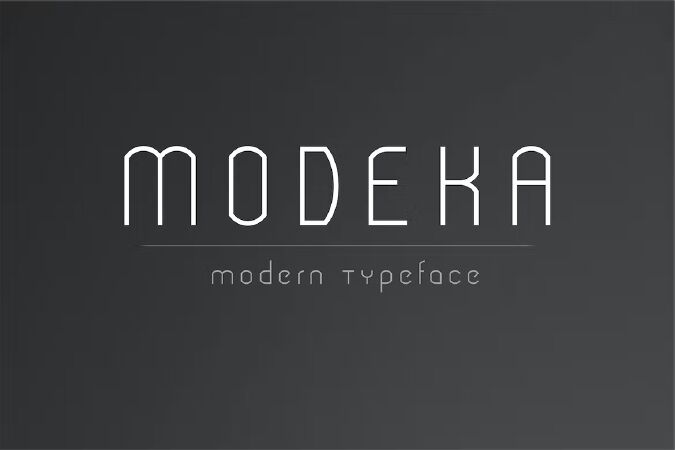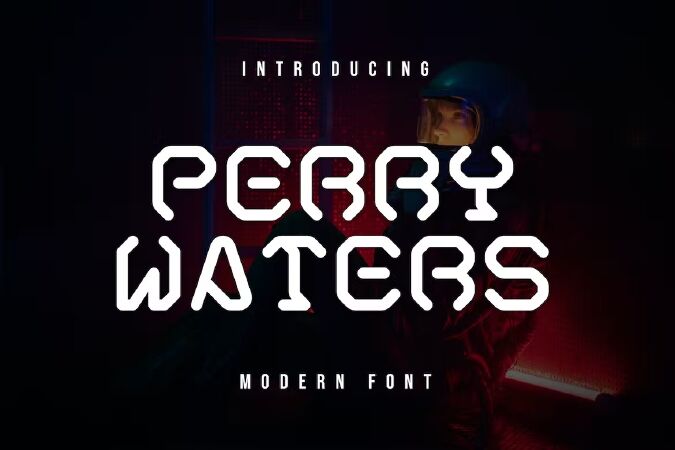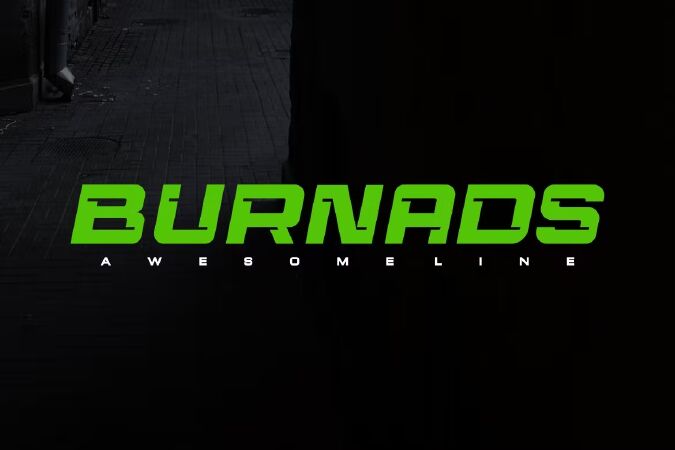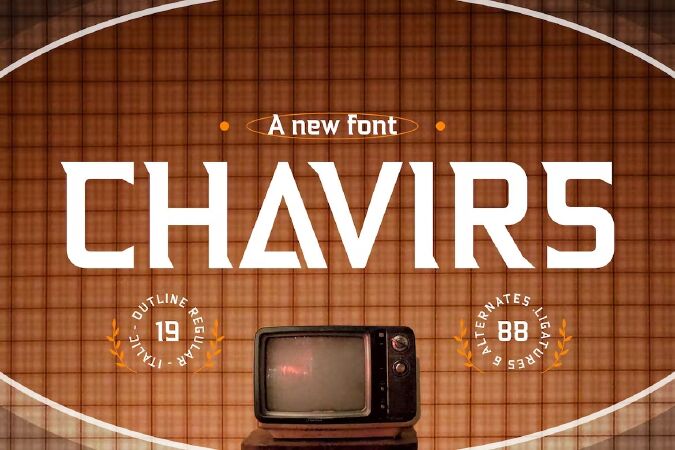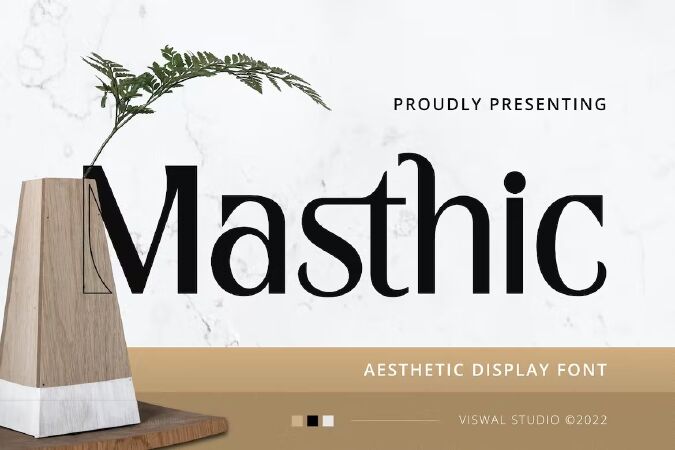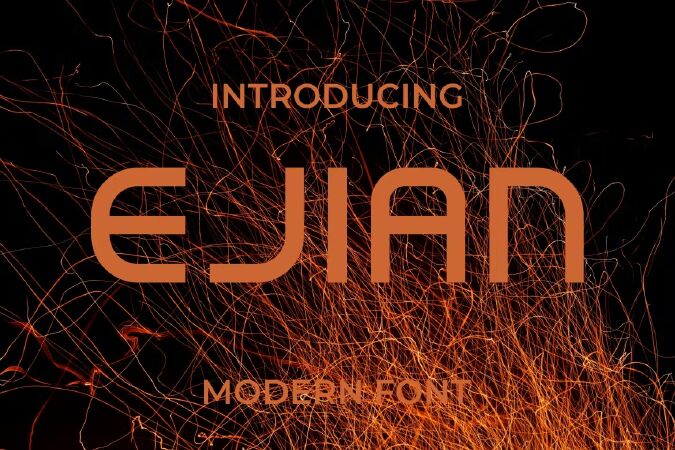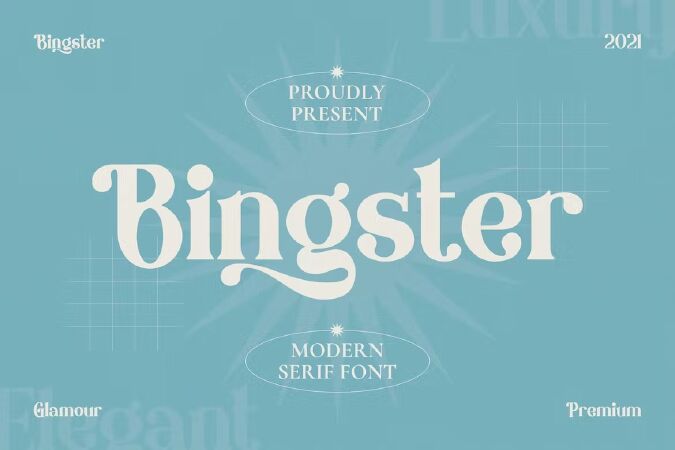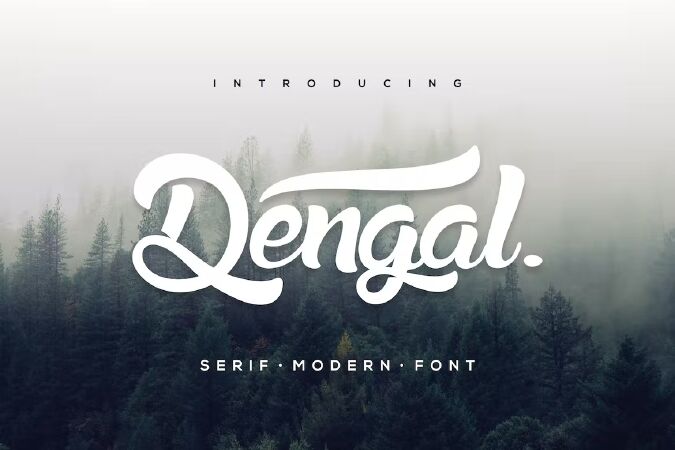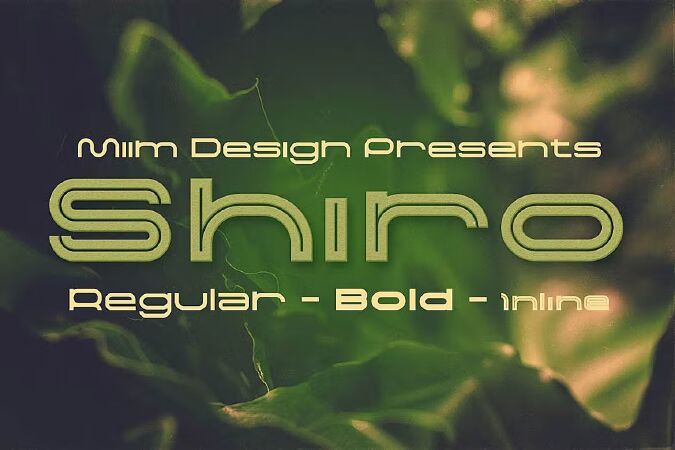
Top 10 best modern fonts for your designs
If you're looking for a great-looking font with a bit of an edge, look no further than this collection of modern fonts. This roundup full of sleek, classy, and versatile fonts is perfect for titles, typography, posters, magazines, brochures, packaging, Websites and much more for your design needs, making your designs more cool. This cool font is complete with Uppercase, Lowercase, Numeric & symbols. Create unique, impressive designs with our modern fonts now.
1 Sagita | Modern Font
Sagita | Modern Font with a calligraphy style, So beautiful on invitation like greeting cards, branding materials, business cards, quotes, posters, and more!
The alternative characters were divided into several Open Type features such as Stylistic Sets, Stylistic Alternates, Contextual Alternate, SWASH and Ligature. The Open Type features can be accessed by using Open Type savvy programs such as Adobe Illustrator, Adobe InDesign, Adobe Photoshop Corel Draw X version, And Microsoft Word. And this Font has given PUA unicode (specially coded fonts). so that all the alternate characters can easily be accessed in full
• Tons of glyphs
• Alternates and Ligatures
• PUA Encoded Characters - Fully accessible without additional design software.
• Fonts include Multilingual Support
2 Modeka - Modern Font
Modeka is a regular modern sans serif font, with an elegant style!
3 PerryWaters Modern Font
PerryWaters is modern font that we designed with original touch for your needs. This cool font is complete with Uppercase, Lowercase, Numeric & symbols. This very strong and sharp font is perfect for titles, typography, posters, magazines, brochures, packaging, Websites and much more for your design needs, making your designs more cool.
4 Burnads - Modern Font
Introducing Burnads, a simple and modern sans serif font. So perfect for you who needs a typeface for logo designs, magazine, social media, brochure, and many more.
• Uppercase
• Numerals
• Punctuation
5 Chavirs - Modern Font
Chavirs - Modern Font is a set of upper & lowercase serif characters which includes a large range of punctuation glyphs, numerals, and multilingual support. A full set of stylistic alternates for lowercase characters are also available.
• Uppercase & Lowercase
• Alternate
• Ligatures
• Number
• Punctuation
• Multilingual Supports
• Regular
• Italic
• Italic outline
• Outline
6 Masthic - Modern Font
Presenting Masthic - Modern Font is suitable for Logo, Magazine, advertising, branding etc. Our fonts have Uppercase & Lowercase, Numeral & Punctuation, Multilingual support and Opentype Features. For Amazing designs you can mix with other fonts as a complement.
7 Ejian Modern Font
Introducing our new product Ejian Font - Modern Font
Ejian Font - Modern Font is a bold and authentic display font. The font is suitable for any branding project like logo, t-shirt printing, esport, and many more. outstanding in a wide range of contexts.
• Uppercase
8 Modern Font - Bingster
10 Shiro - Modern Font
Creative, modern & futuristic font for your new projects. Great for modern or futursitic style projects! 3 font files (otf & ttf) - regular, bold & inline.